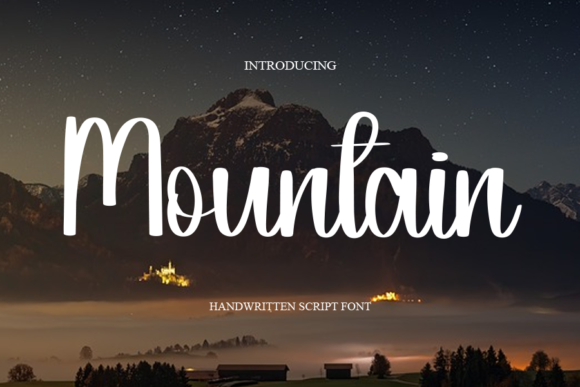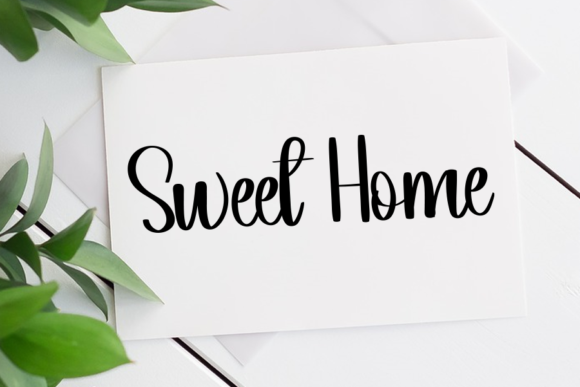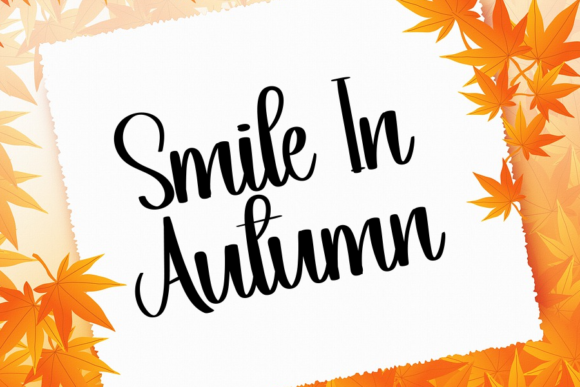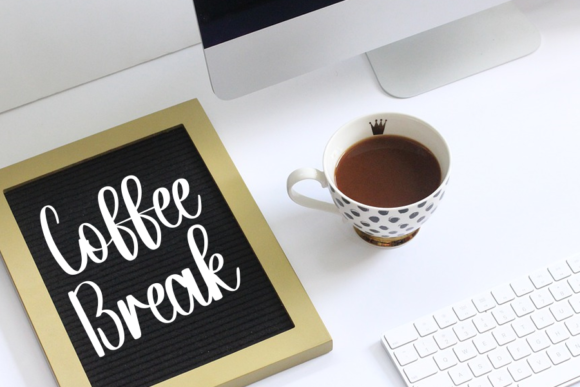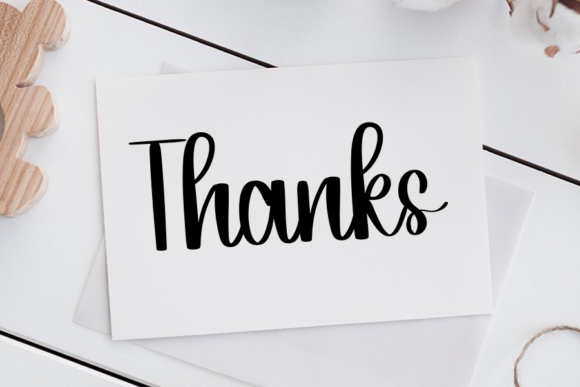
Mountain Font
About Mountain Font
Mountain is a cute and delicate, lettered handwritten font that you can use for all chalkboard quotes or teaching material! Its authentic look will add a personal and realistic feel to your designs.